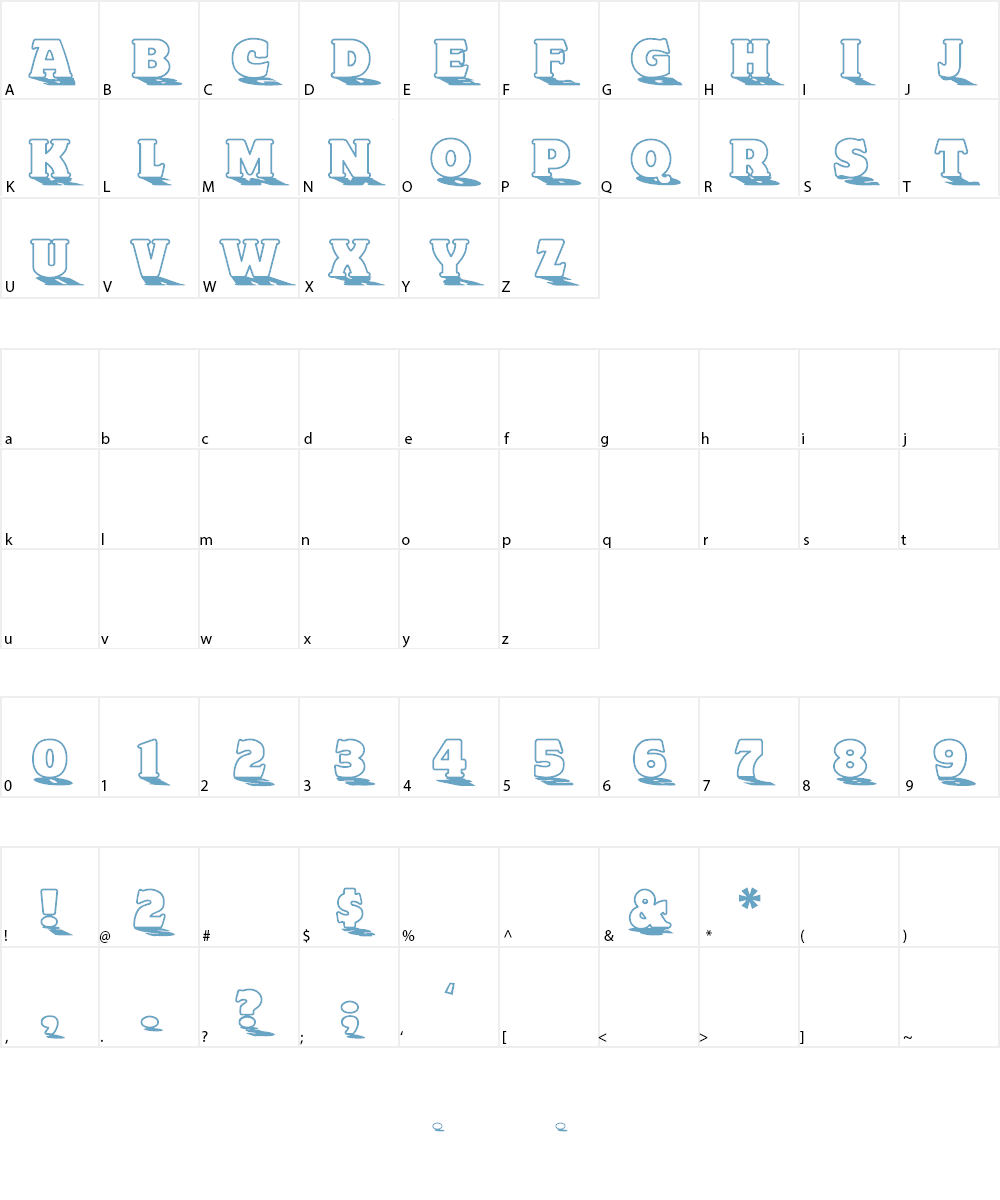
The letterforms are based on ITC Motter Corpus, cleaned up, given an outline and a cast — not drop — shadow. Suitable for any “"beautiful girl-and-boyland” occasion. Special thanks to Jeff Levine for the idea for this font.